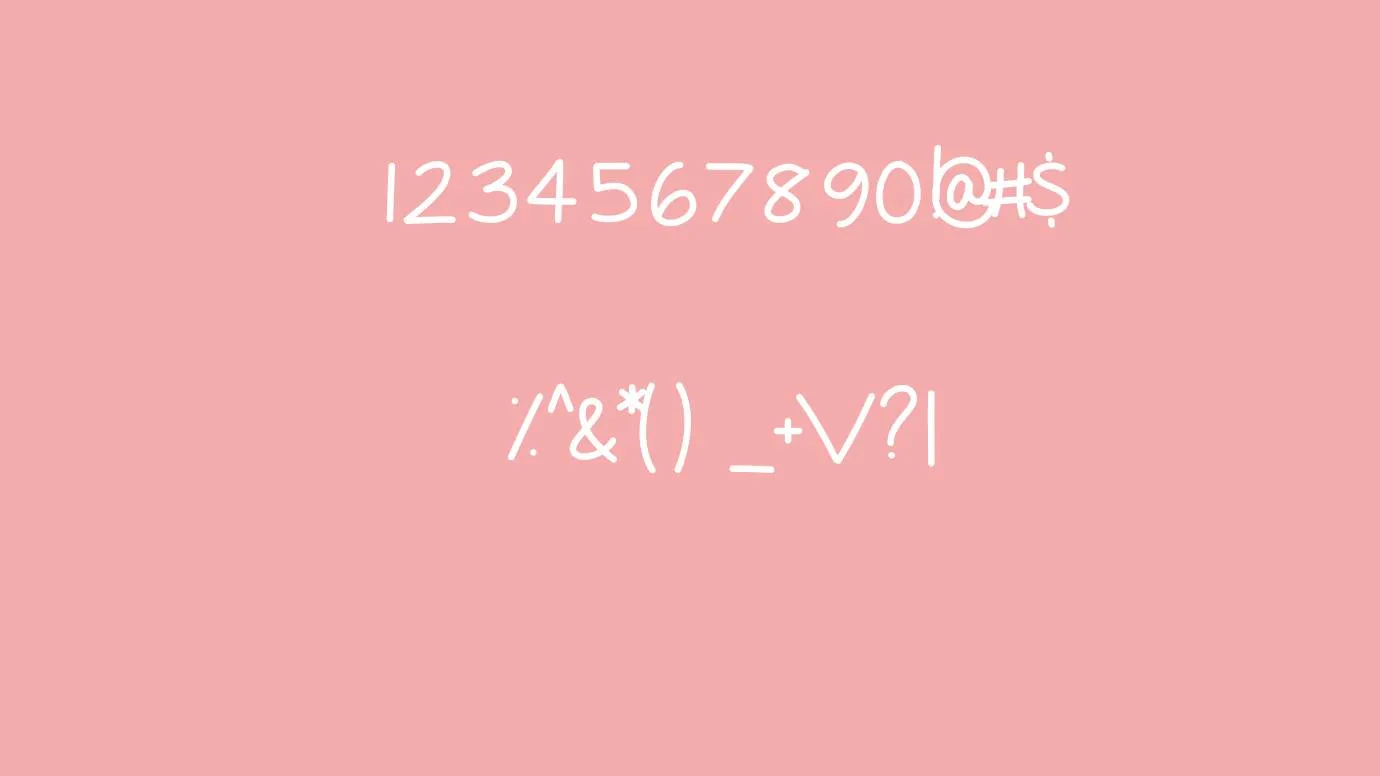
Main Features of Always in My Heart Font are created by the most talented designer Vanessa Bays. The typeface can improve the design effectiveness of the project. The typeface is an ideal option to create the aesthetic feel in the project content design very easily. The font has new and trendy designs for the clients.
This typeface plays an important role in creating new and exciting designs. The style has unique and attractive characters such as uppercase and lowercase alphabets and digits as well. The style can be generated by using an online generator tool.
The typeface’s beautiful characters have been made up of attractive design patterns. This script style is suitable for creating unique designs in Canva and Adobe Photoshop applications.
Usage of Always in My Heart Font in Brands
Additionally, a wide range of graphic creations, including logos, branding, marriage cards, postcards, and much more, utilize this lovely typeface. Your designs will have a specific elegance as a result. For social media posts, this style works best.
What is the type of Always in My Heart Font?
Always in My Heart is a contemporary script font family. It highlights unique textual styles. This family moreover emphasized numerous ligatures and substitutions.